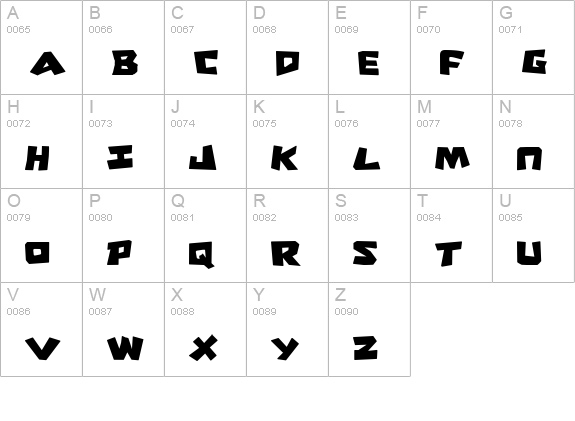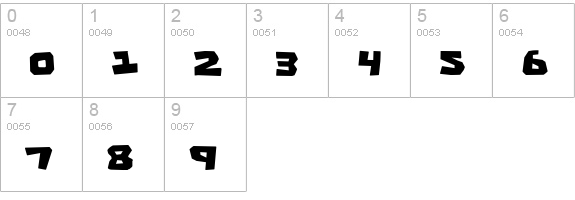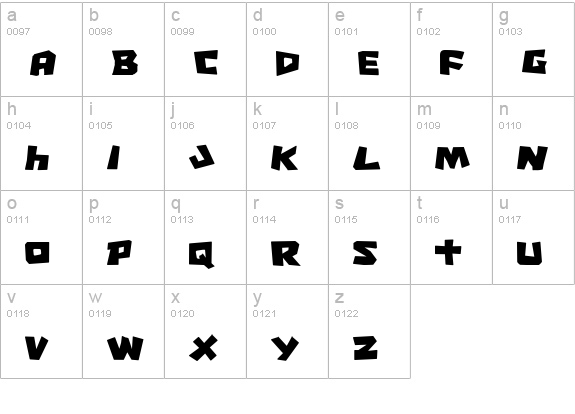
Cro-Magnum Font Details
Cro-Magnum font is a bold and eye-catching typeface that exudes strength and power. Its rugged and primitive design gives off a sense of raw energy and vitality, making it perfect for projects that require a touch of primal appeal. The sharp edges and rough textures of Cro-Magnum font add a unique and edgy element to any design, making it stand out from the crowd. What's even better is that Cro-Magnum font is available for free download at FontsMarket.com. This means that you can easily add this striking font to your collection without having to spend a dime. Whether you're working on a poster, logo, or any other creative project, Cro-Magnum font is sure to make a bold statement and leave a lasting impression. Download it now and unleash the power of this captivating typeface in your designs.